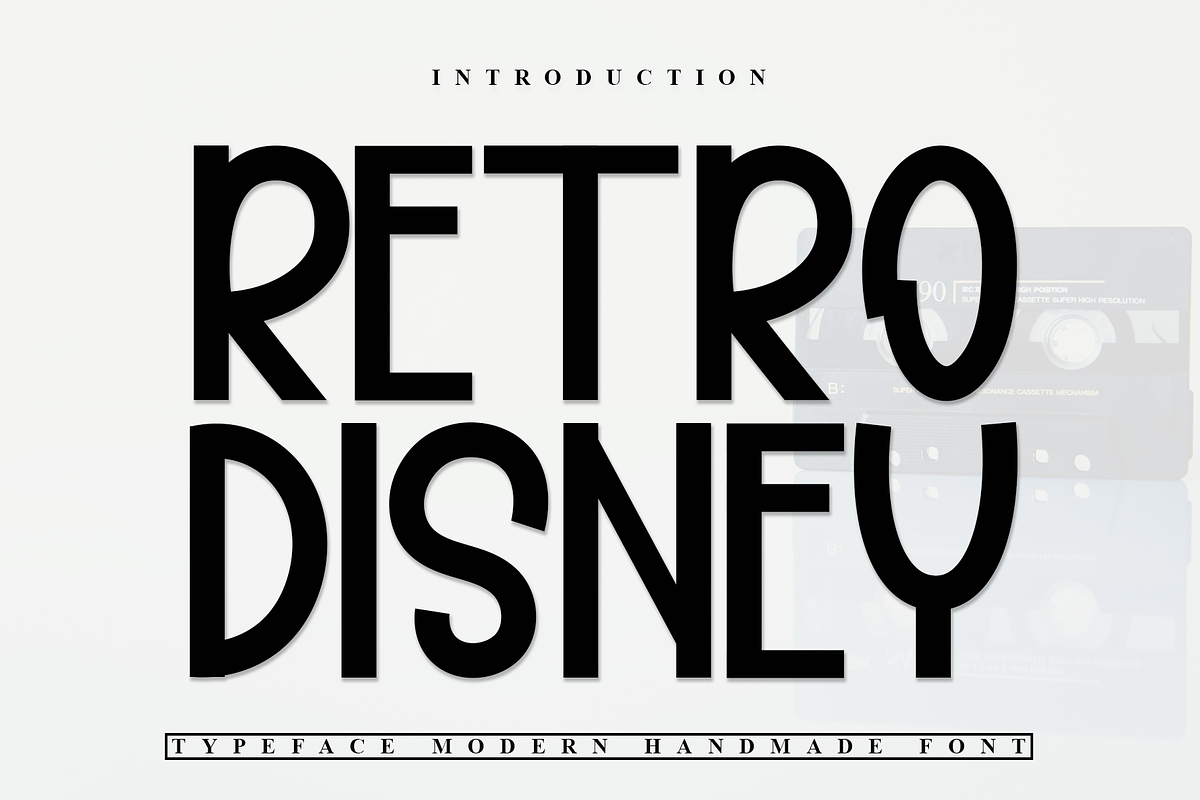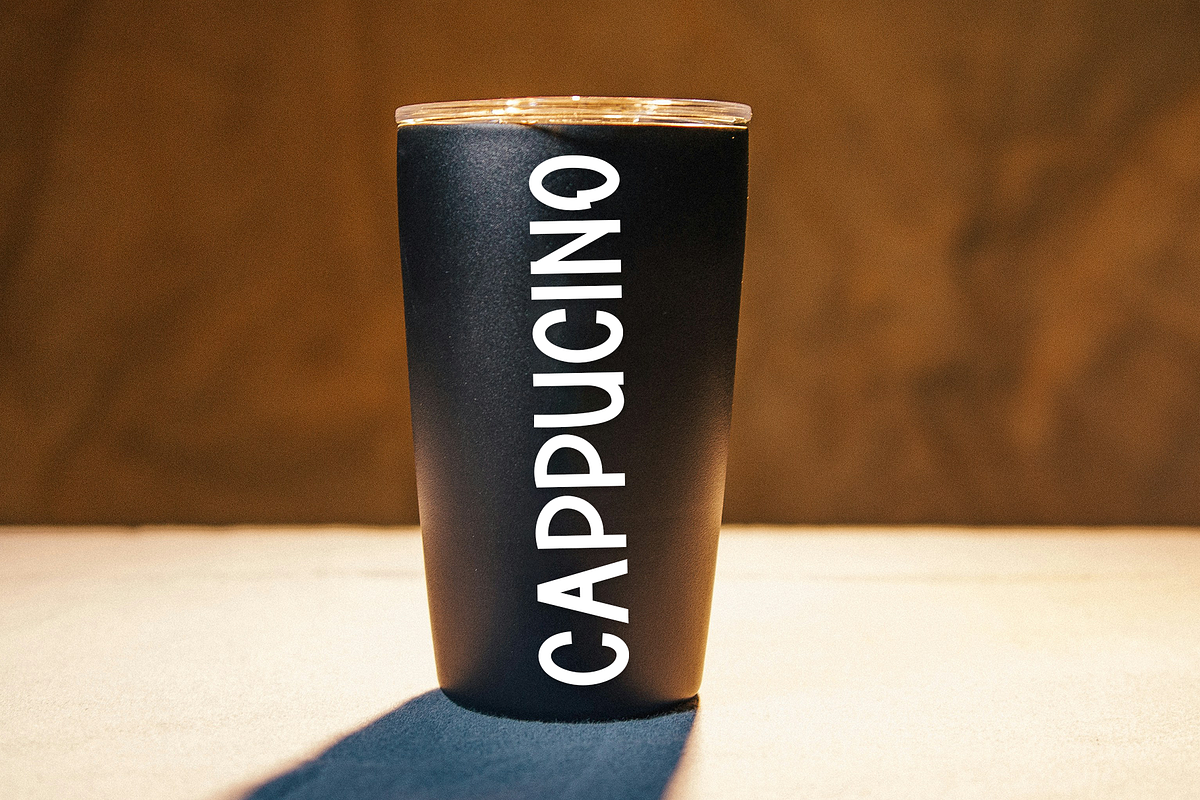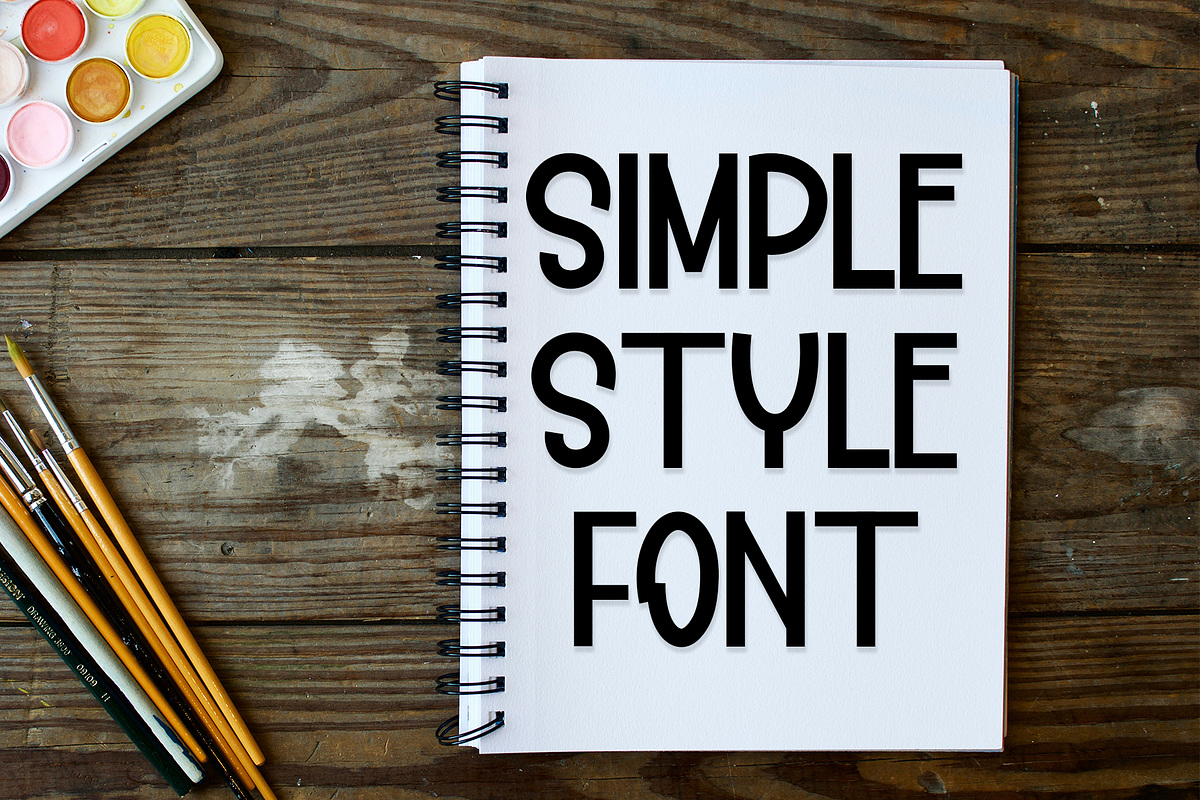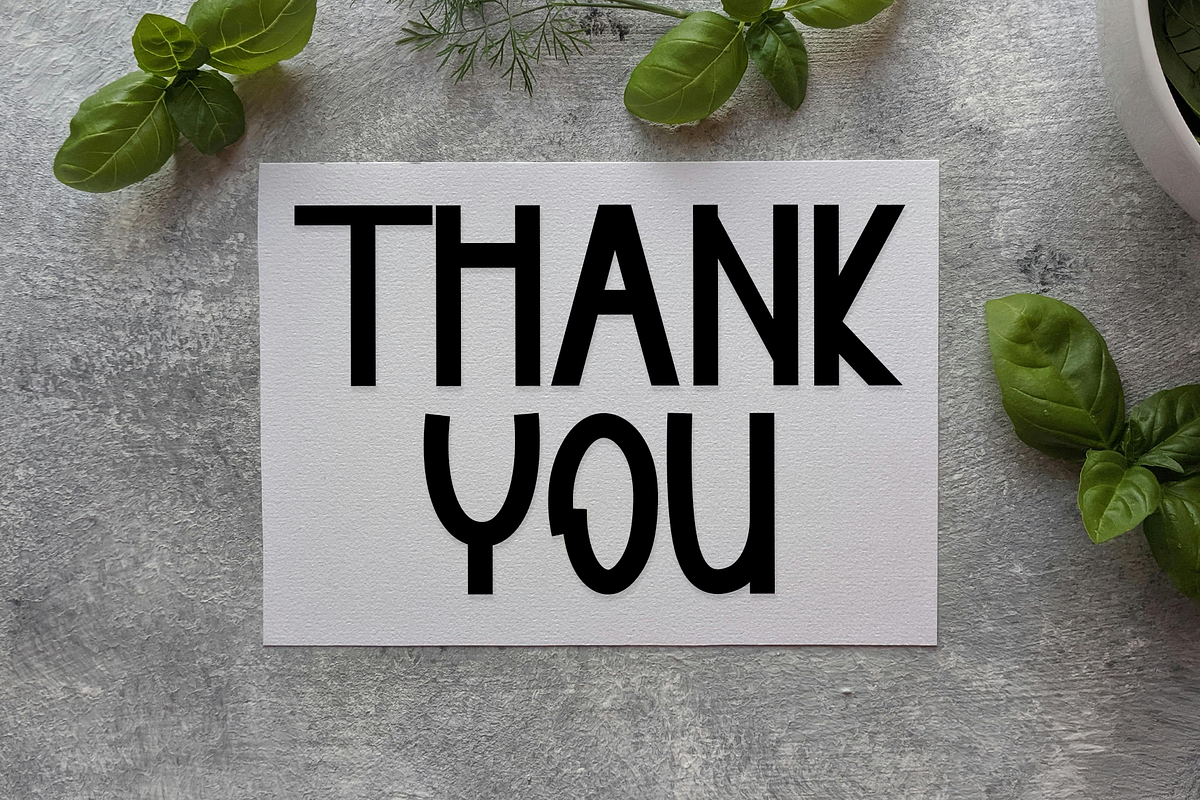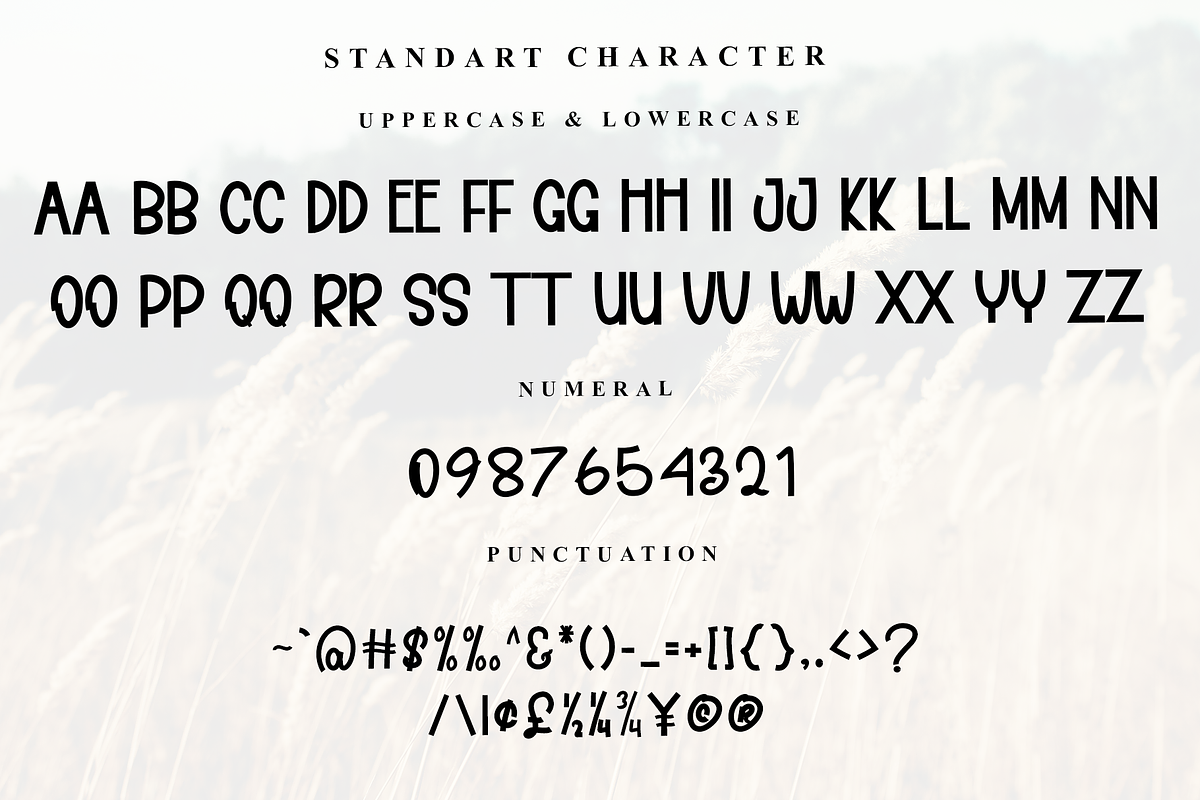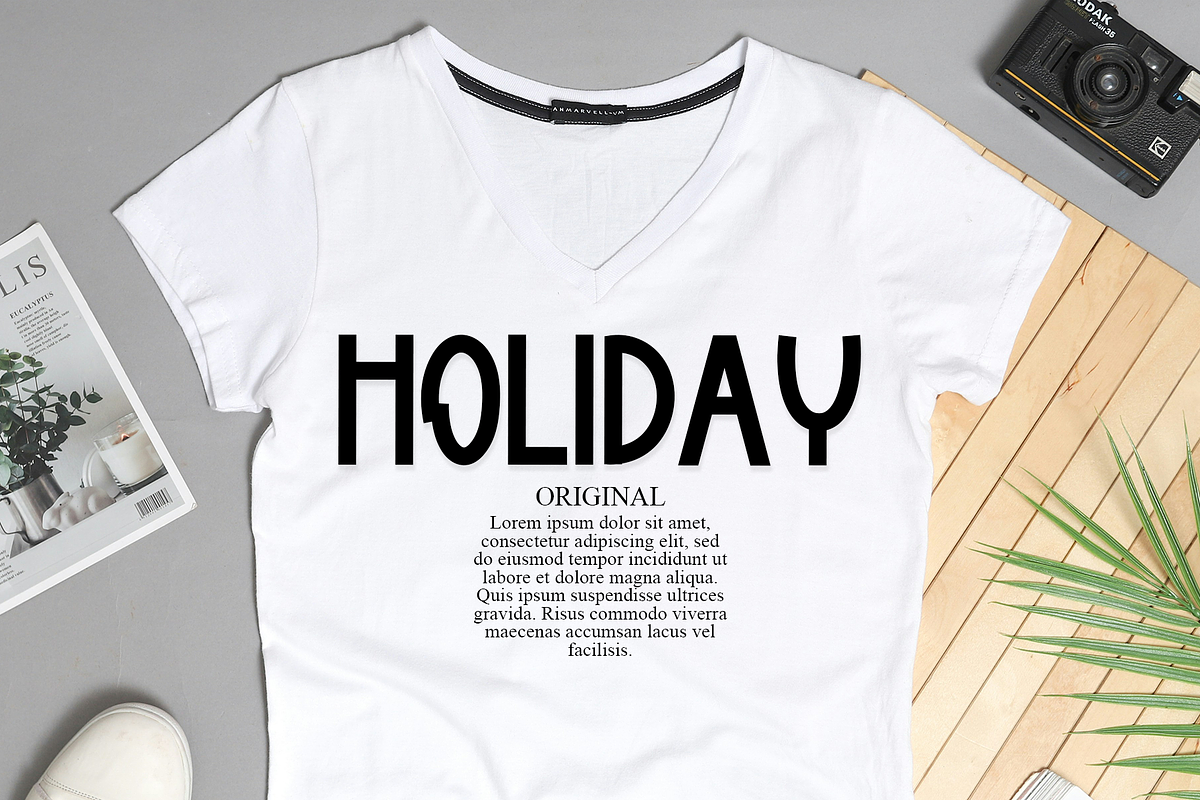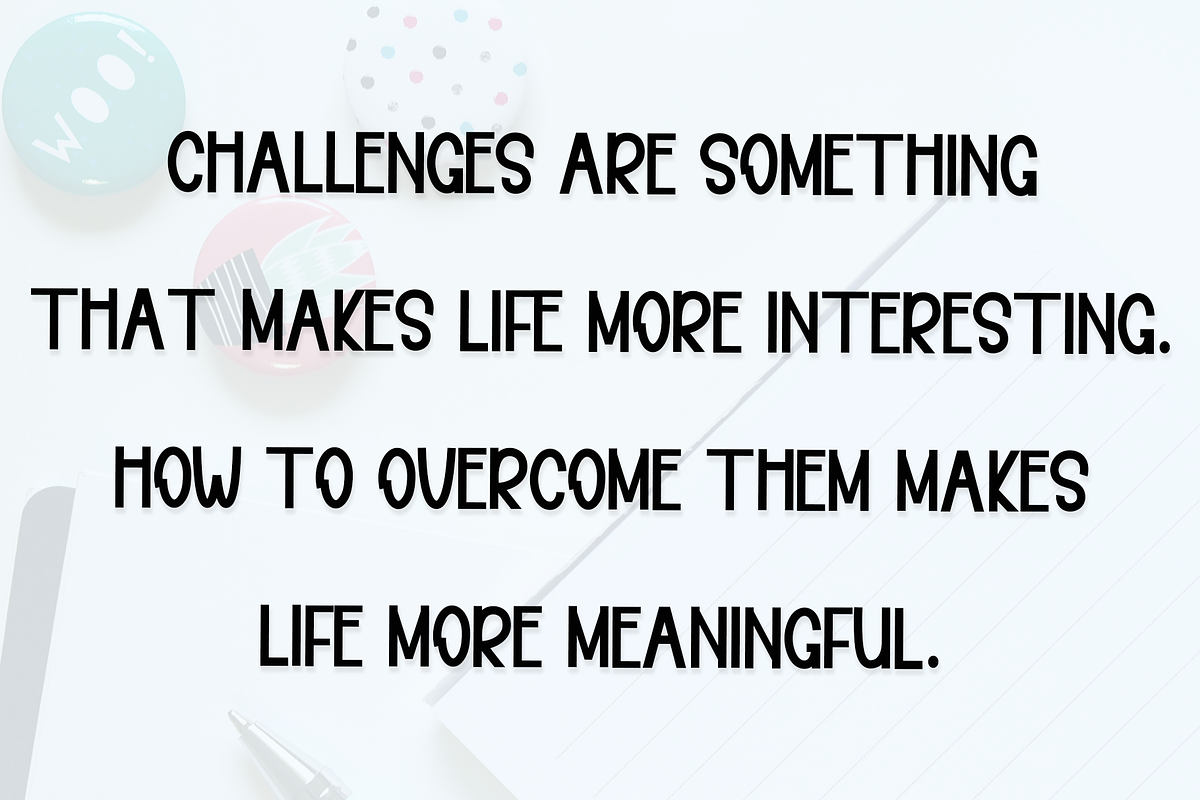
Retro Disney
A font designed for your business needs, using this font you can grow rapidly, besides that this font is also suitable for making flayers, wedding invitation cards, logos, banners, birthday cards, YouTube, thumbnails. Elegant fonts and expensive styles will make consumers interested in owning them. Has Characters above international standards as well as PUA Encoded which means you can access all the glyphs and swashes easily.. Smooth Style and suitable for a wide range of applications.